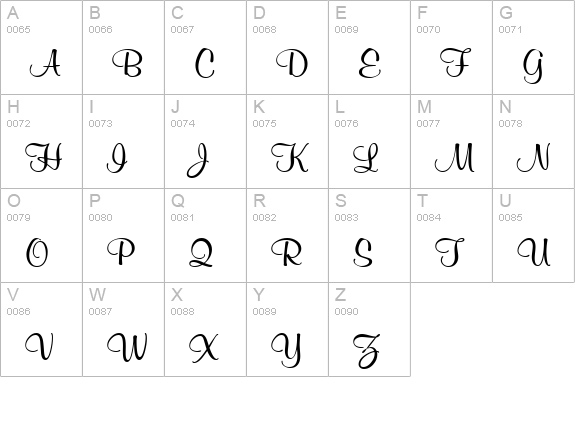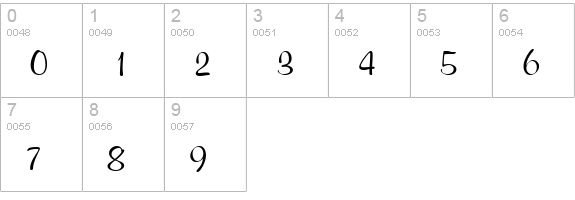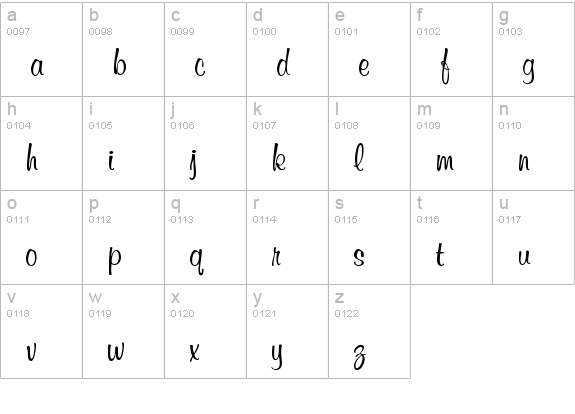
GE Curviture Font Details
Introducing GE Curviture font, a sleek and modern typeface designed to bring your projects to life with its elegant curves and stylish aesthetic. This versatile font is perfect for a wide range of design applications, from branding and packaging to web design and social media graphics. With its unique blend of sophistication and creativity, GE Curviture font is sure to make a statement and captivate your audience. The smooth curves and flowing lines of this font add a touch of elegance and class to any project, while still maintaining a fresh and contemporary feel. Best of all, GE Curviture font is available for free download at FontsMarket.com, making it easily accessible for designers and creatives looking to elevate their work with a high-quality typeface. Don't miss out on the opportunity to enhance your designs with the striking beauty of GE Curviture font – download it today and unleash your creativity!